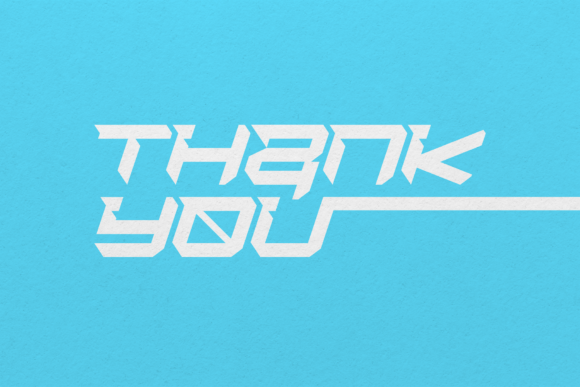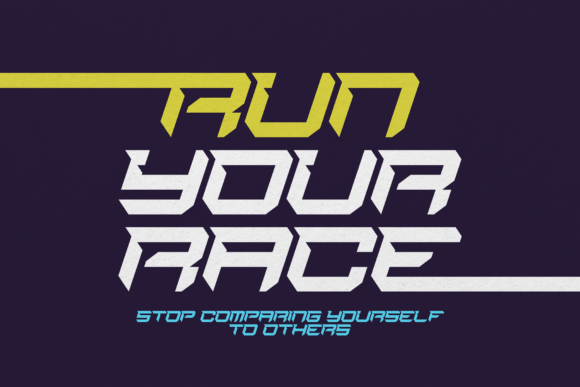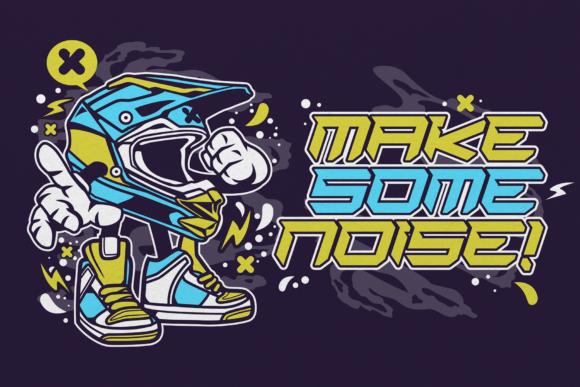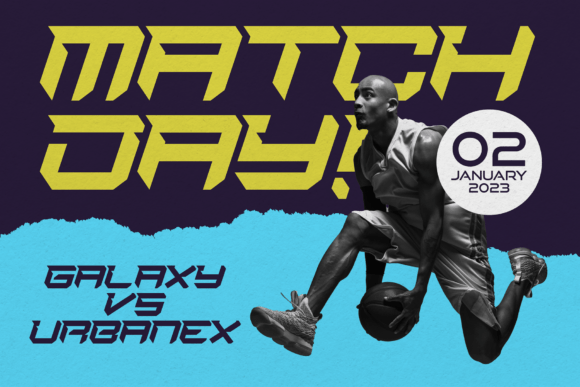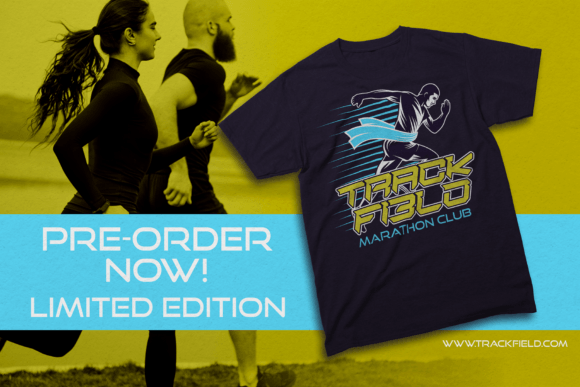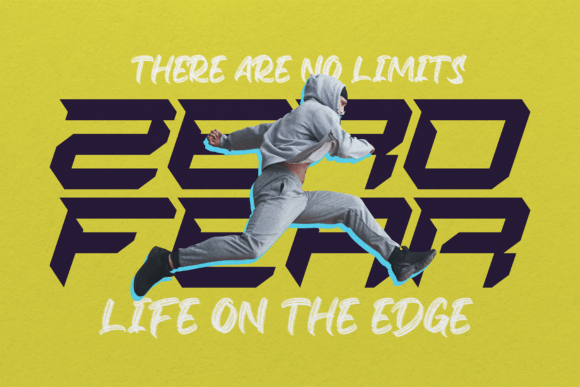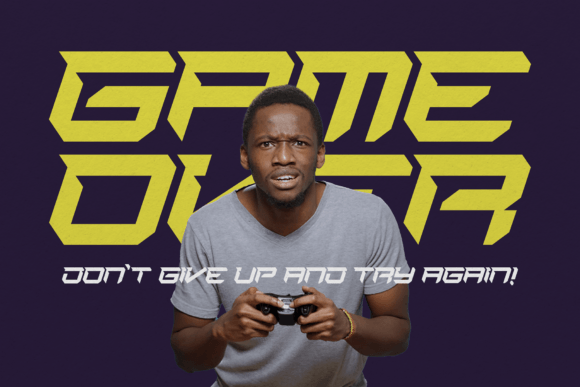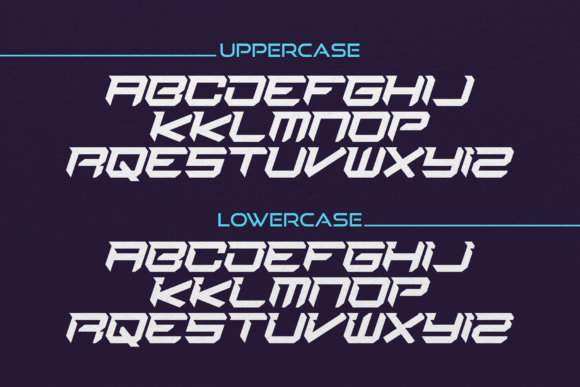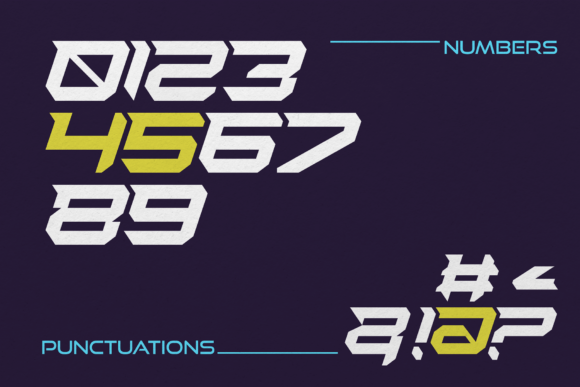
Aerobody
Aerobody: A Powerful Racing Theme Font
Aerobody is a powerful sport display typeface designed specifically for racing and automotive-related projects. This bold font draws attention and adds vibrant character to sport-inspired designs[2][3].
Key Features of Aerobody
• Sport Design: Offers powerful racing-themed letterforms[2].
• Bold Style: Brings attention-grabbing impact to designs[3].
• Vibrant Character: Creates dynamic visual presence[2].
• Display Appeal: Perfect for headlines and large formats[3].
Best Uses for Aerobody
Thanks to its sport-focused characteristics, Aerobody works especially well for:
When using Aerobody in your designs, keep these tips in mind:
• Try it for headlines to showcase its powerful style[3].
• Use its sport character for racing-themed projects[4].
• Take advantage of its bold presence for attention-grabbing designs[2].
• Let its vibrant appeal enhance automotive applications[2].
To sum up, Aerobody is an excellent choice for designers seeking a powerful racing theme font. Its sport-focused design makes it perfect for various automotive and racing projects. Whether you’re creating jerseys, designing logos, or developing advertising materials, Aerobody offers the perfect blend of power and sport-inspired style.
Furthermore, Aerobody’s distinctive design allows it to shine in contexts where both impact and sport aesthetics are key. From headlines to branding materials, this font can elevate your projects with its dynamic style. Also, its bold appearance works particularly well in designs that aim to make a powerful sporting impact[2][3].
In conclusion, Aerobody truly captures the essence of racing design in display typography. Its ability to work across different applications shows how well it can serve various sport-related needs. Therefore, for those wanting to add a touch of racing spirit to their work, Aerobody can enhance any design with its distinctive style. Ultimately, it’s perfect for designers aiming to make a powerful, sport-focused impact across automotive and racing projects.